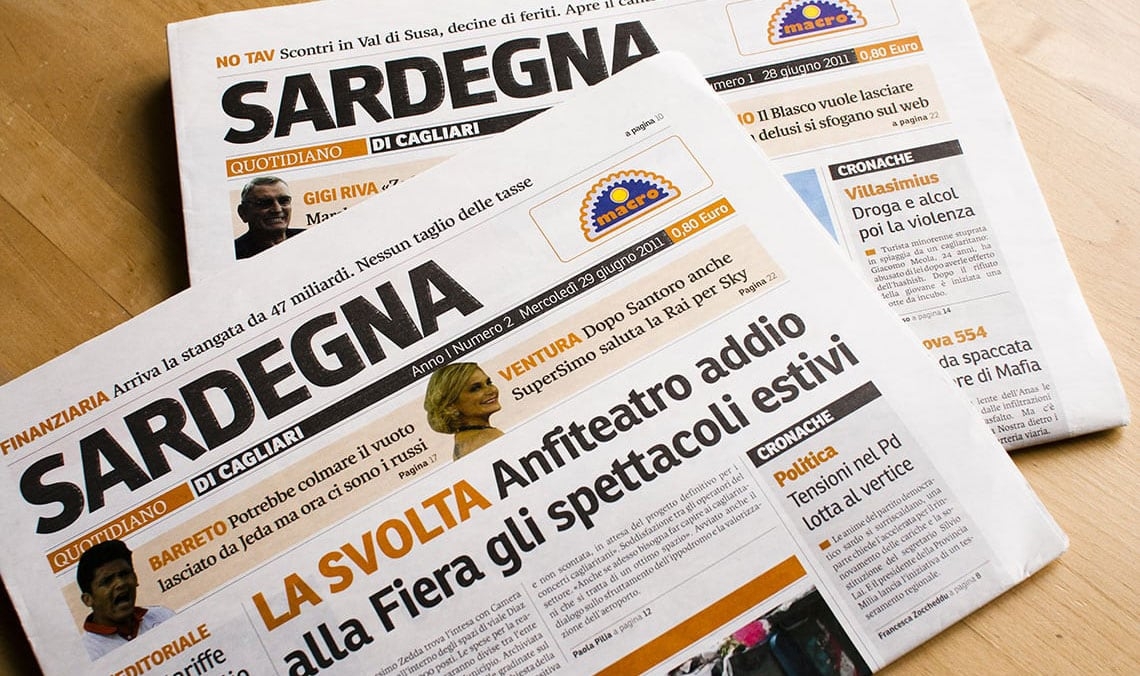
Sardegna Quotidiano newspaper
The Italian daily newspaper “Sardegna Quotidiano” uses two of our newspaper fonts, Ronnia and Karmina.
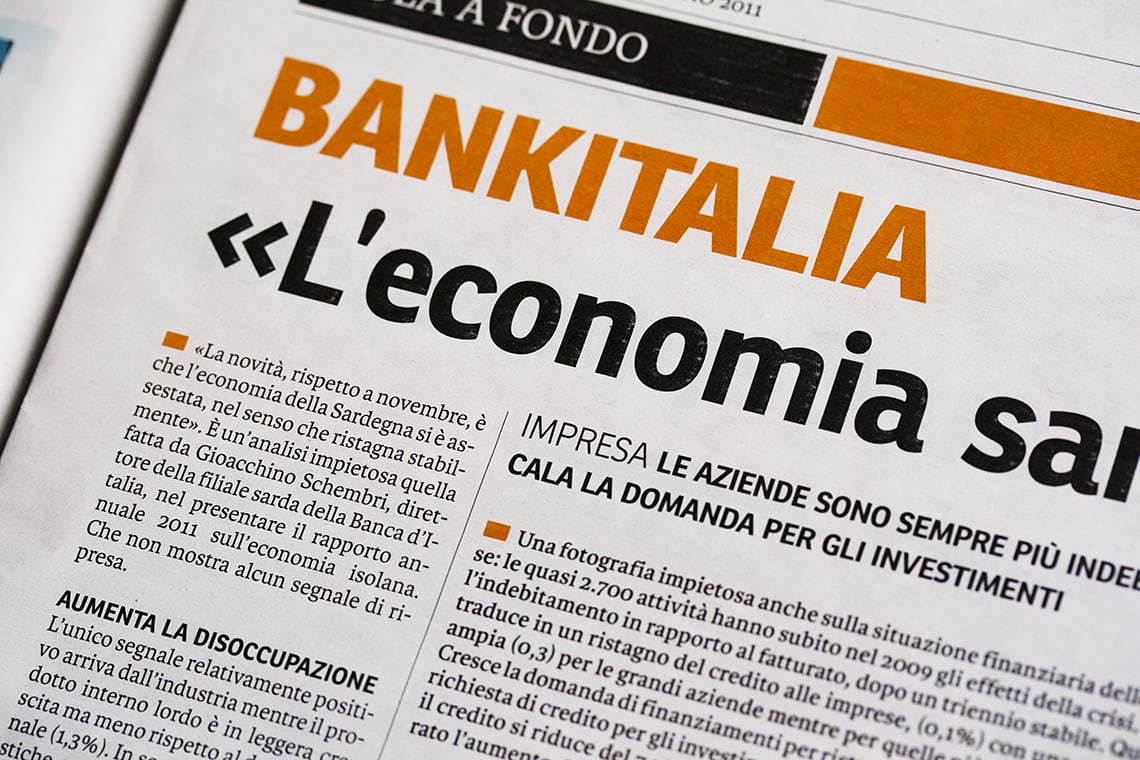
The Italian daily newspaper Sardegna Quotidiano has been recently re-designed by Milan based studio, Alberto Valeri srl. The newspaper is published by the Journalist Association of Sardenia and covers mostly national and regional news together with local cultural events and sports. Valeri successfully used our editoral bundle of newsfaces, consisting of Ronnia for titles and Karmina for body text.